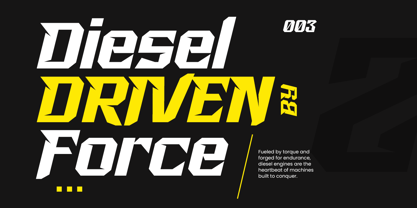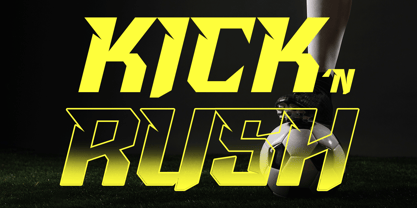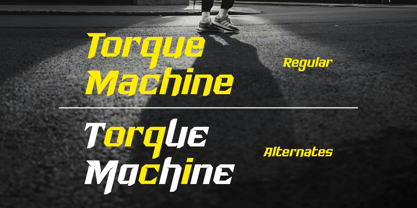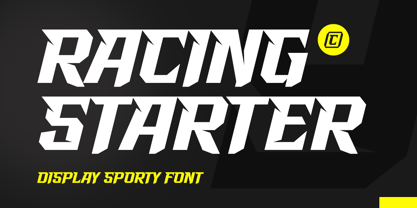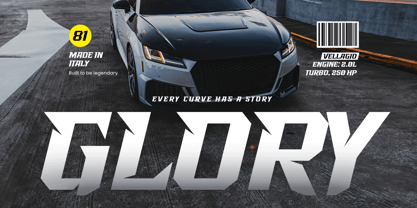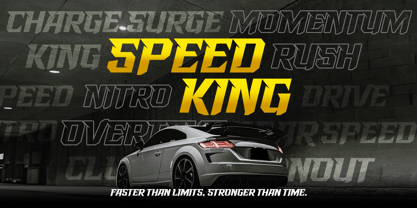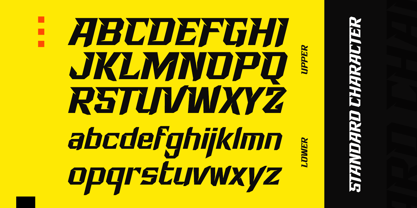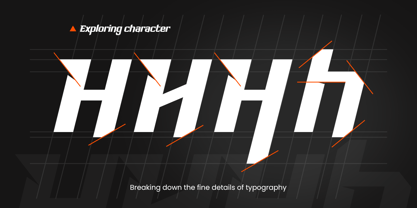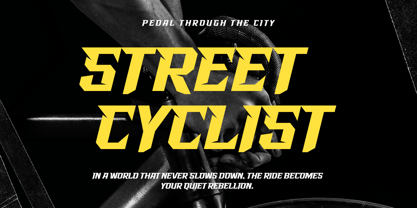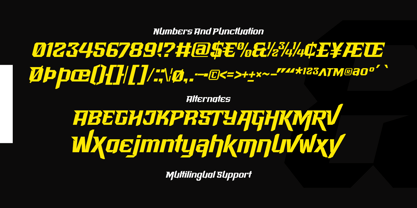
Racing Starter
by DGtype
The Racing Starter Font Family was designed by Ahmad Ramzi Fahruddin and published by DGtype. Racing Starter contains 1 styles. More about this family
Racing Starter is a bold and dynamic typeface built for speed, power, and precision. With its square, narrow structure, sharp edges, and energetic sliced effects, this font brings a futuristic edge to any design.
Crafted for sports and action-packed themes, Racing Starter is perfect for branding on sticks, bikes, wheels, helmets, bags, jerseys, and more. Its fast, strong, and dashing character commands attention and drives impact.
Designers: Ahmad Ramzi Fahruddin
Foundry: DGtype